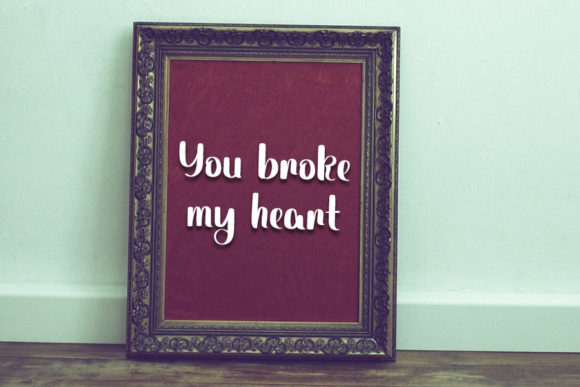
Dragon Fruit Font
db-ku.com - Script & Handwritten -- Dragon Fruit is a playful and smart handwritten font with an impeccable form, inspired by a timeless calligraphy. Balanced and varied, this font was designed to enhance the beauty of your projects.